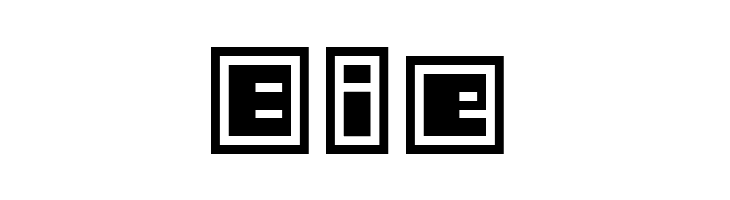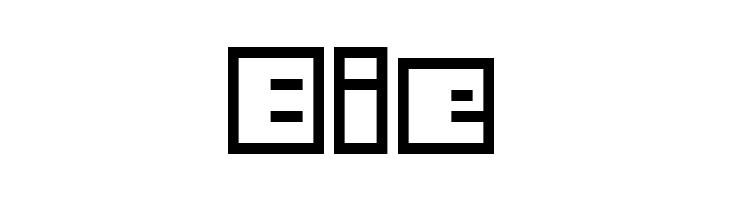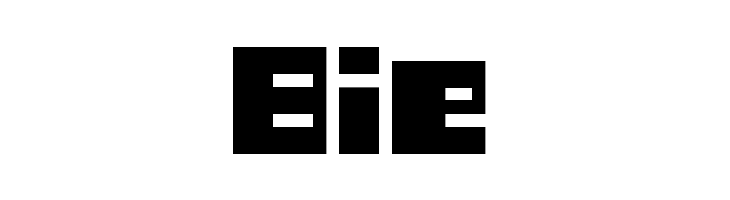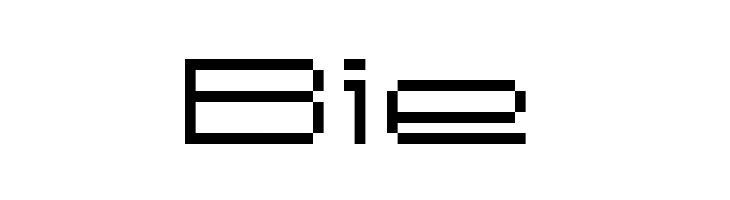
A modern, sleek font combining geometric and cursive styles.
A narrow, italicized font with medium contrast and a modern style.
A pixelated, retro-style font inspired by early digital displays.
A modern, geometric font with clean, rounded edges and a minimalist style.
A bold, italicized font with a futuristic and geometric design.
A modern, rounded sans-serif font with excellent readability.
A modern, geometric font with a sporty, futuristic design.
A modern, slanted font with a futuristic and geometric design.
A modern, geometric font with thin lines and a clean, minimalist style.
A modern, geometric font with clean lines and rounded edges.
A modern, reverse italic, compressed font with consistent stroke weight.
A thin, reverse italic font with a modern and sleek design.
A sleek, modern font with tall, narrow characters and consistent stroke width.
A modern, light sans-serif font with smooth, rounded edges and low contrast.
A sleek, modern, light italic font with elegant curves and minimal contrast.
A modern, tall, and narrow unicase font with a sleek design.
A sleek, italicized font with elongated, narrow characters for a modern look.
A modern, elongated font with sleek, narrow characters.
A modern sans-serif font with a clean, professional look and uniform stroke width.
A clean, modern sans-serif typeface with balanced proportions and versatile applications.
A modern, bold, and italicized font with medium contrast and a sleek, elegant style.
A sleek, elegant italic font with thin strokes and modern appeal.
A symbol font with diverse Christian cross designs.
A collection of DJ and music-themed icons and graphics.